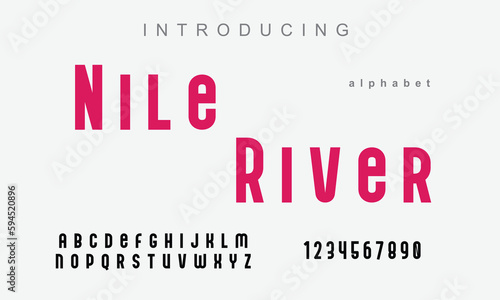
Nile River font. Elegant alphabet letters font and number. Classic Copper Lettering Minimal Fashion Designs. Typography fonts regular uppercase and lowercase. vector illustration